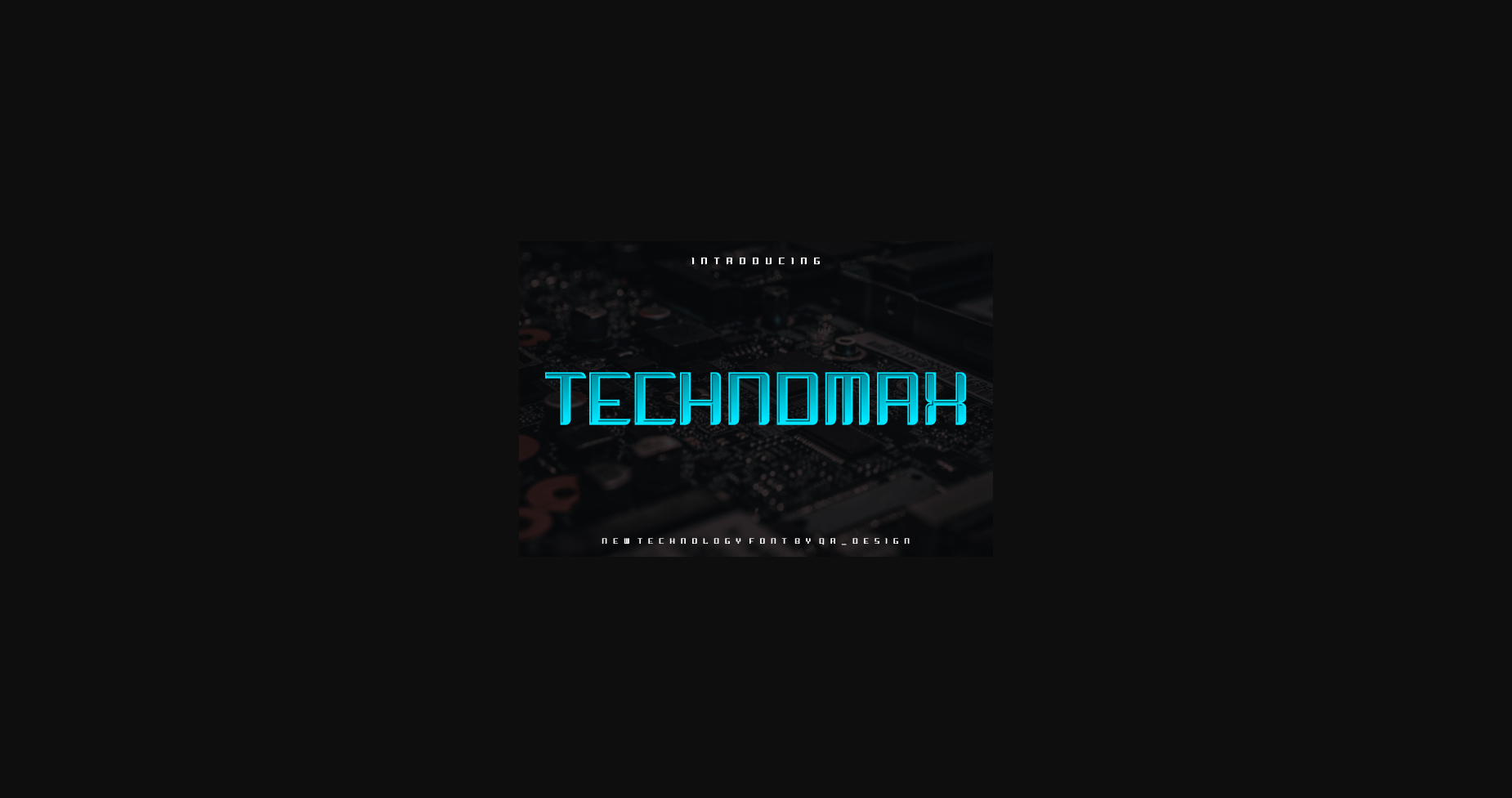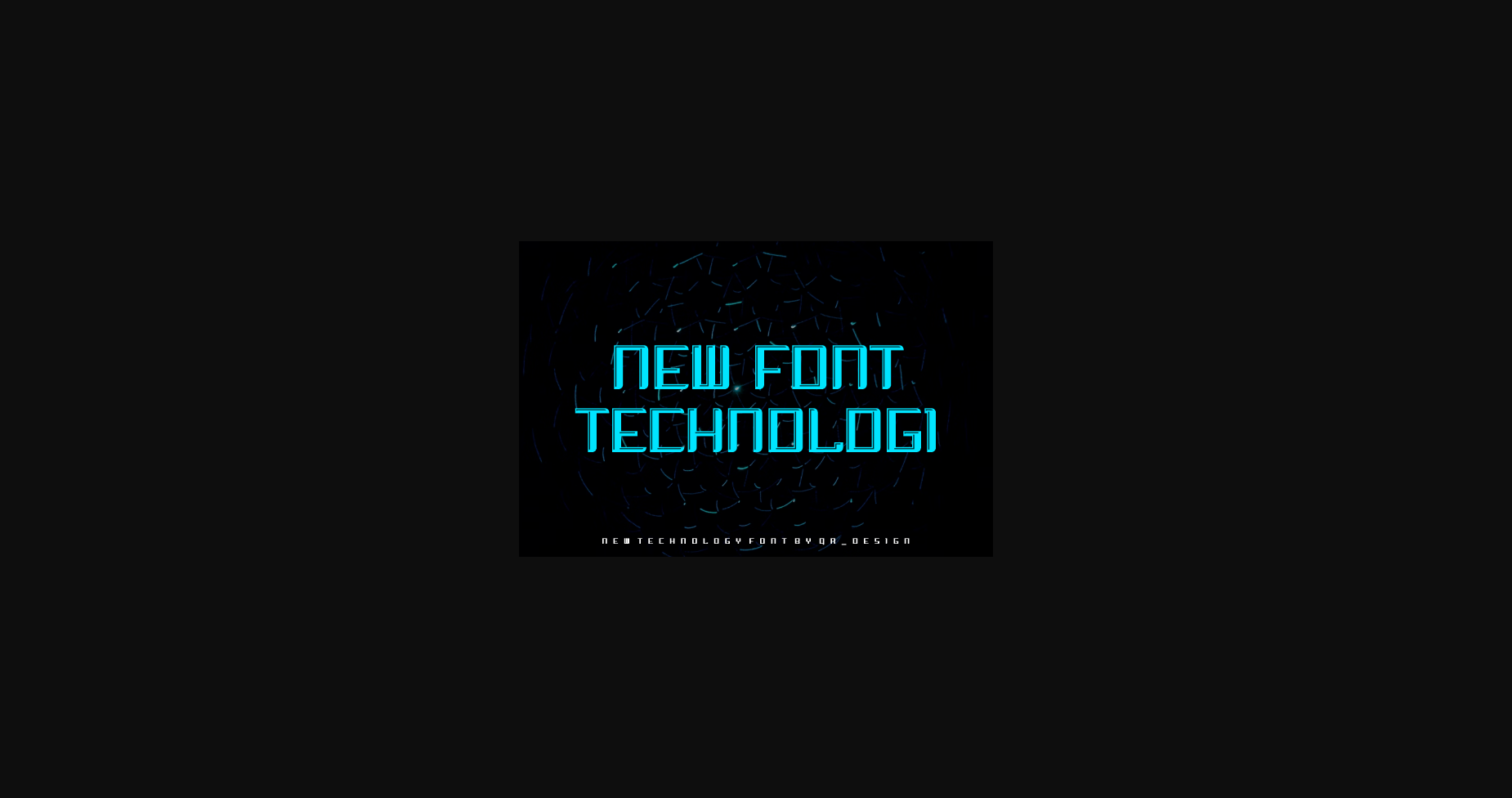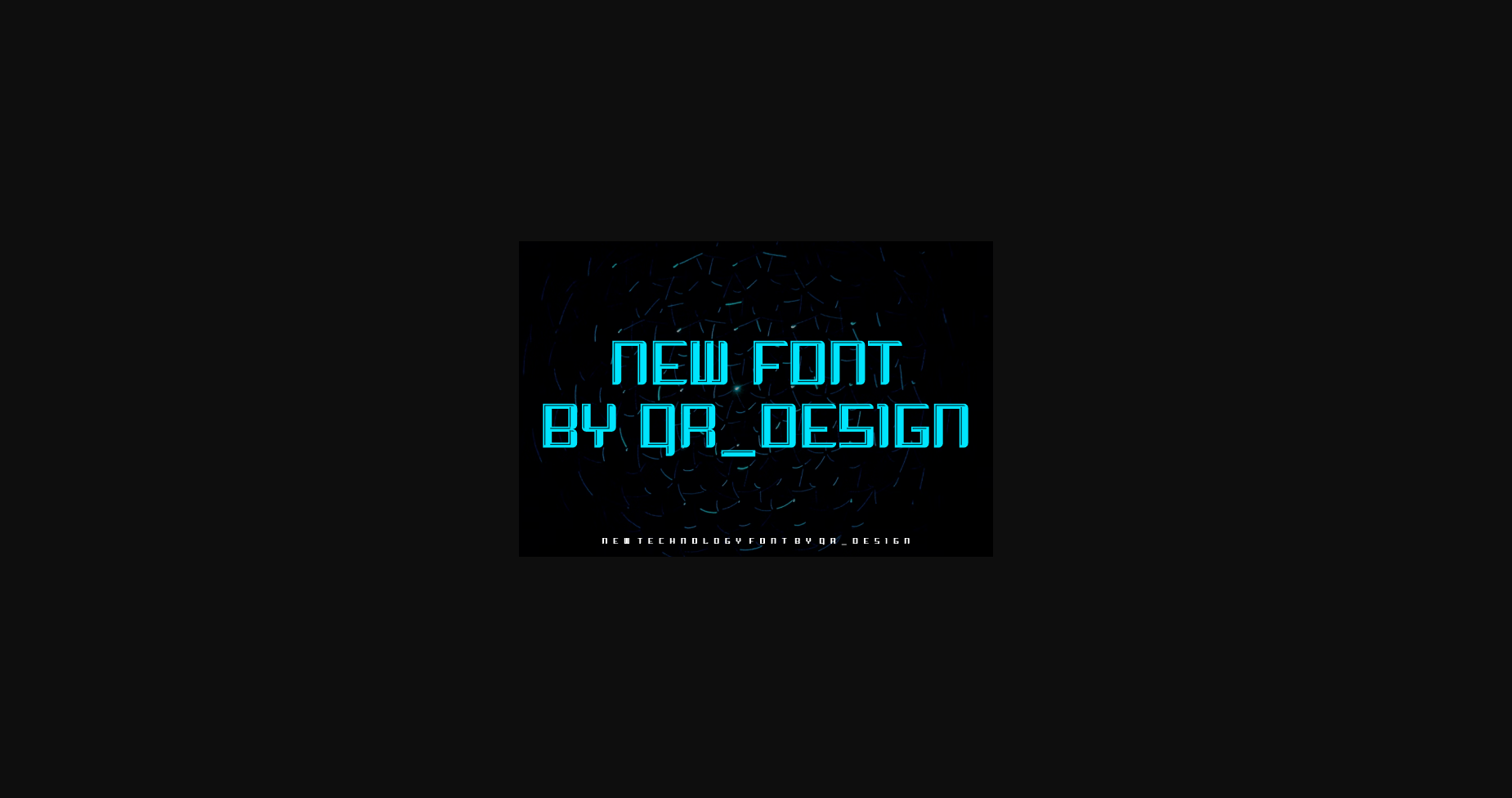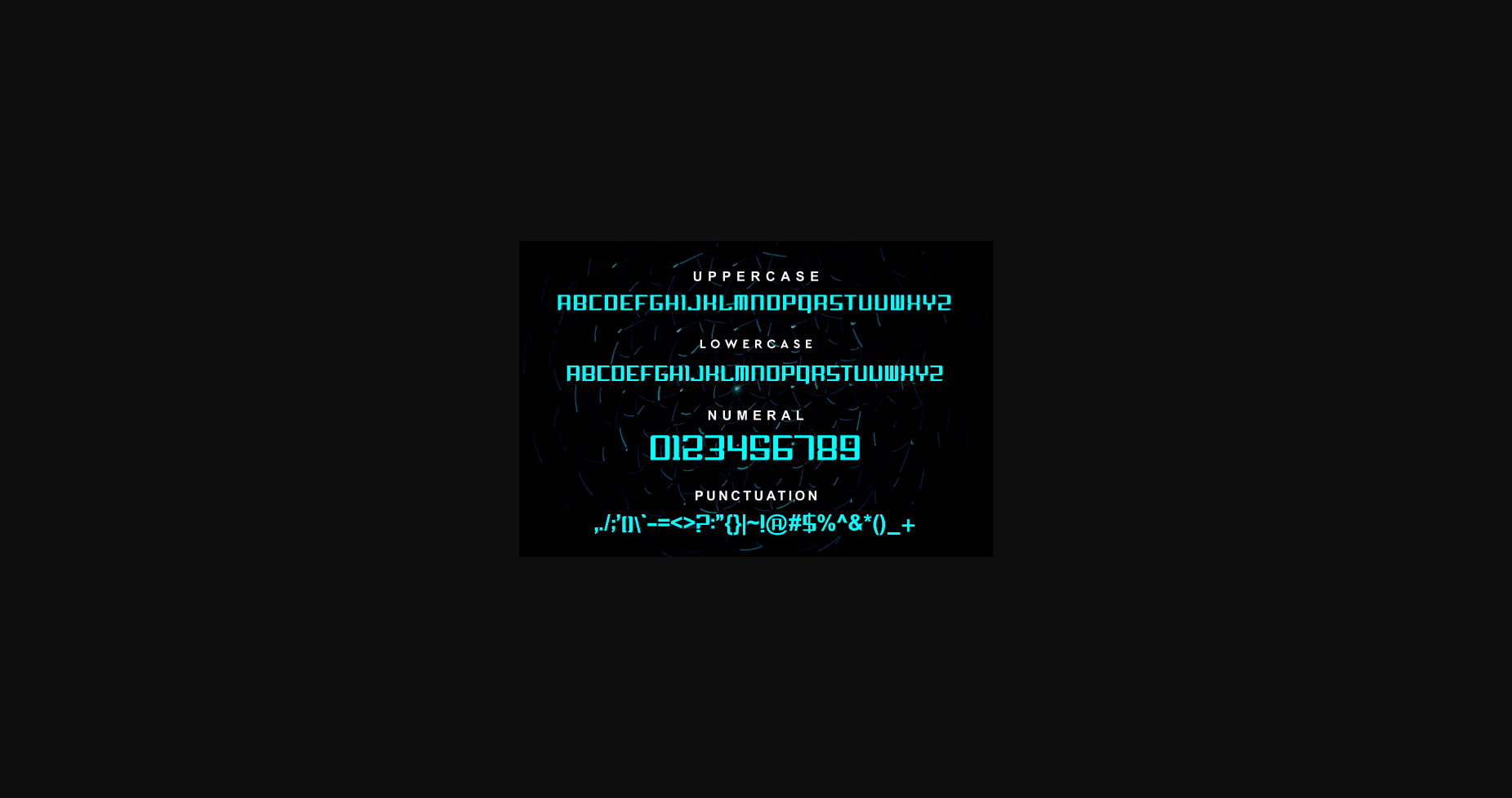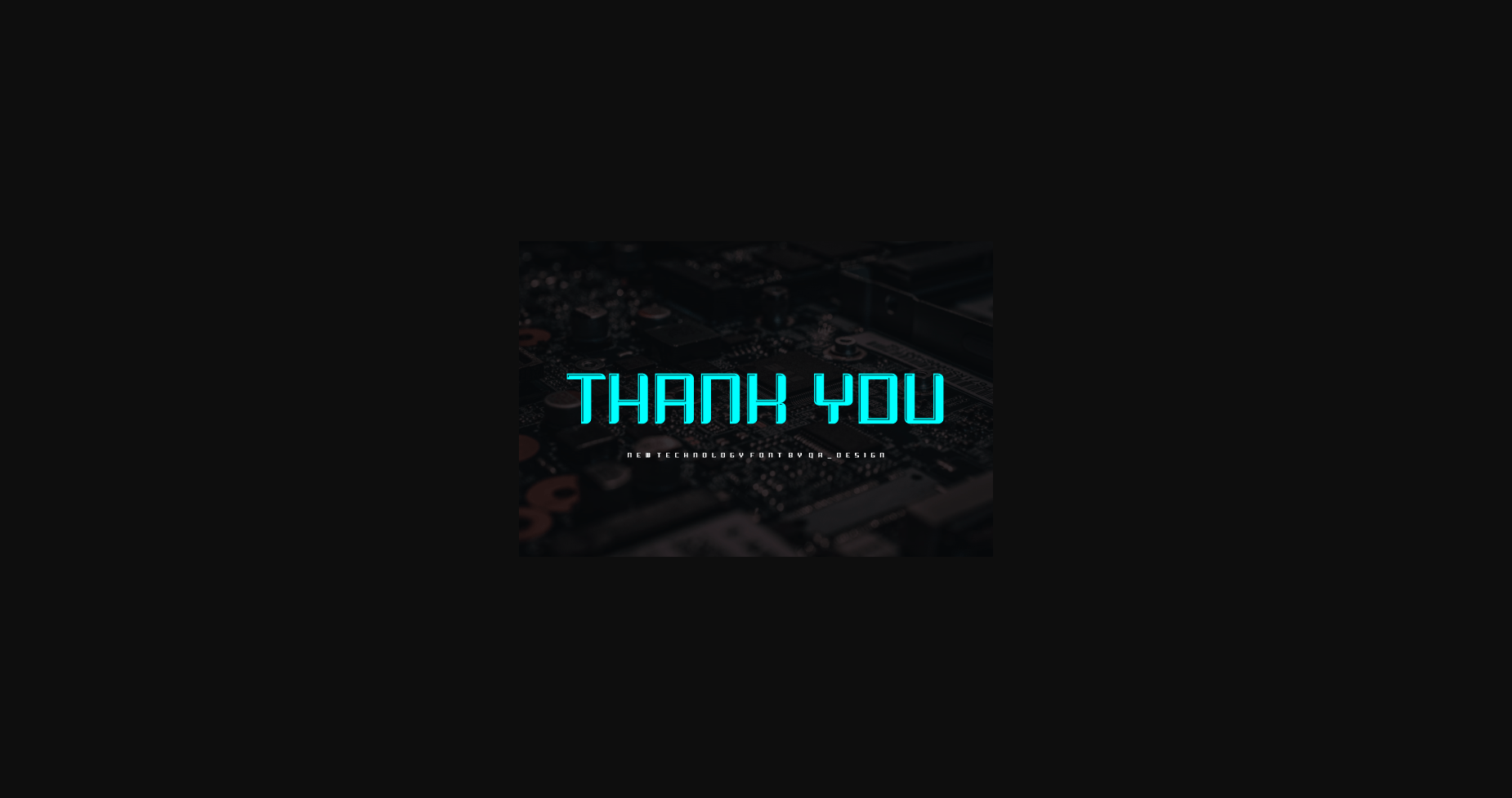
HomeSans Serif FontsTechnomax Font Sans Serif Fonts Technomax Font FacebookXPinterestWhatsApp 1 of 7 ... Technomax Font Poster 2... Technomax Font Poster 3... Technomax Font Poster 4... Technomax Font Poster 5... Technomax Font Poster 6... Technomax Font Poster 7... About Technomax Font Technomax – Techno Font is a bold and authentic display font. The font is suitable for any branding project like logo, t-shirt printing, esport, and many more. outstanding in a wide range of contexts. DOWNLOAD NOW People also explored Soulmate Font Rosemary Font Family Caligraphy Font Capital Gingerbread Font Grapefruit Font Banana Carolline Duo Font Sallenda Wedding Font Milkcheese Font 315 0 TagsTechnomax Font Previous articleTexas FontNext articleBeatrix Game Font LEAVE A REPLY Cancel reply Comment: Please enter your comment! Name:* Please enter your name here Email:* You have entered an incorrect email address! Please enter your email address here Website: Save my name, email, and website in this browser for the next time I comment. Personal Use Free Authurium Personal Use Free Read more about this font Boston Traffic Personal Use Free Read more about this font Kredit Personal Use Free Read more about this font Sebastopol Personal Use Free Read more about this font BLOG How to Install and Use Fonts on Windows, macOS, and Web Projects How to Install and Use Fonts on Windows, macOS, and Web Projects Fonts are a crucial part of design and branding. Whether you’re designing a... Best Fonts for T-Shirt Design – Top 2025 Picks Best Fonts for YouTube Videos: Make Your Thumbnails Stand Out Top 7 Google Fonts Alternatives for Faster and Privacy-Friendly Web Design (2025)